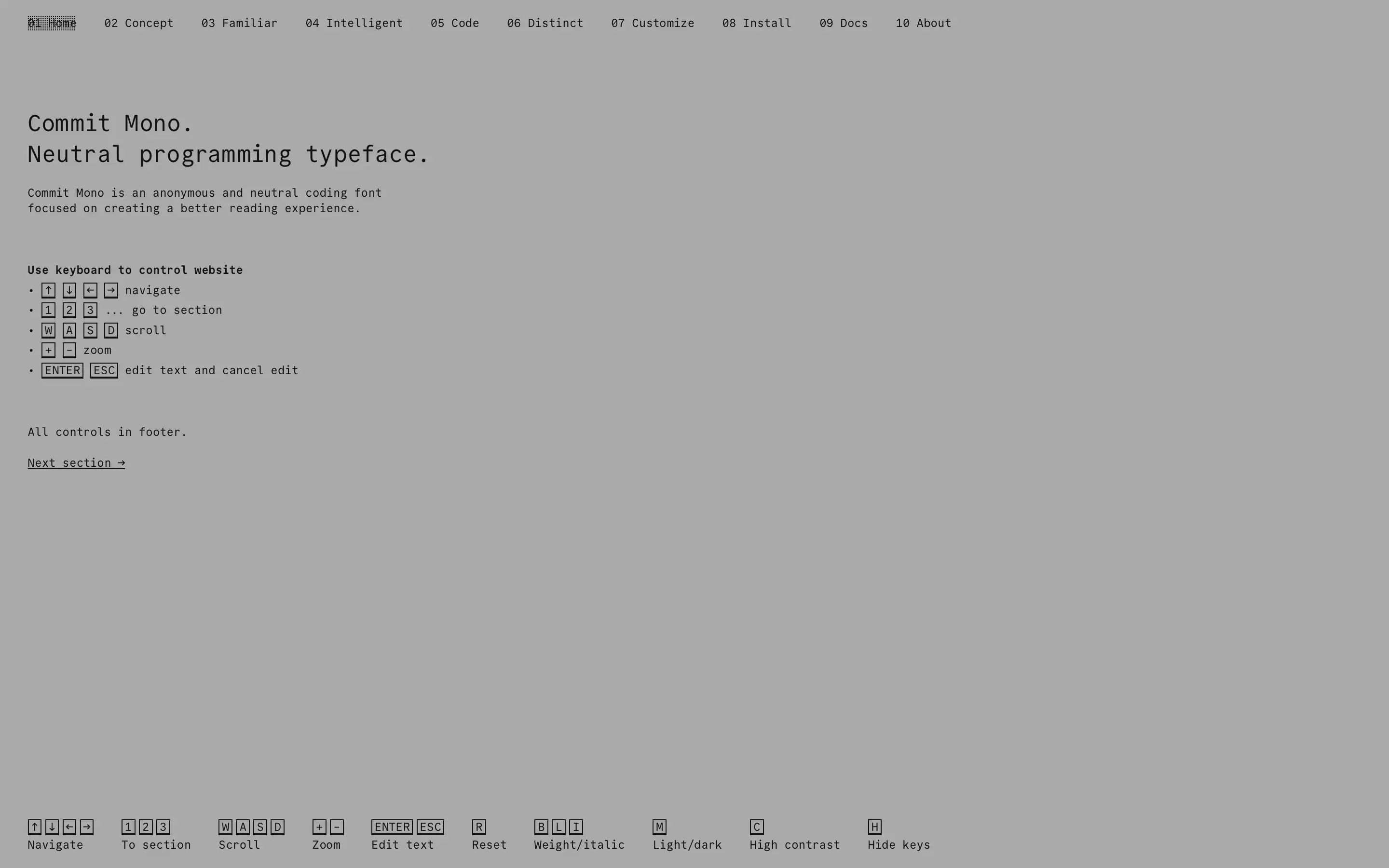
Commit Mono font website home page screenshot.
Commit Mono is a monospaced typeface crafted to enhance the readability of code. Its design philosophy centers on neutrality and anonymity, ensuring that the font remains unobtrusive, allowing developers to focus entirely on their code without distraction.
A standout feature of Commit Mono is its innovative ‘Smart Kerning’ technique. This approach adjusts the spacing between characters to achieve optimal balance while preserving the monospaced nature essential for coding. This results in improved readability compared to traditional monospaced fonts.
Additionally, Commit Mono is explicitly tailored for coding environments, with distinct and clear representations of characters commonly used in programming, thereby reducing potential ambiguities.